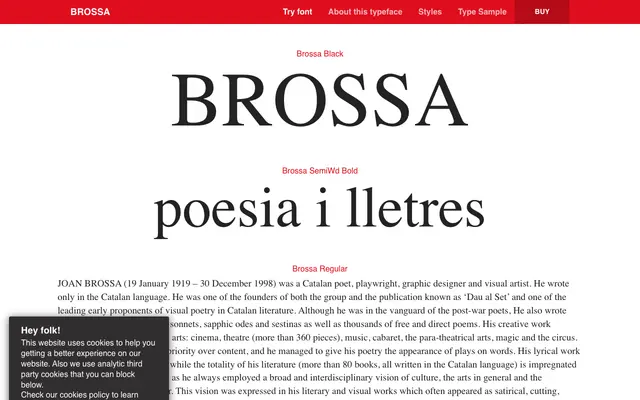
A large grotesque sans spanning six widths and nine weights, named after the Catalan poet and visual artist Joan Brossa.
Running from Condensed to X-Wide across nine weights from Thin to Black, Brossa offers an unusually broad typographic palette within a single family. Each width comes with a full set of italics, giving designers considerable flexibility across print and screen contexts. OpenType features include case-sensitive forms, ordinals, slashed zero and four stylistic sets.
Brossa is a sans-serif with a broad width axis spanning Condensed to X-Wide, consistent with the grotesque tradition. The extensive weight and width range, combined with the absence of decorative or humanist features, places it firmly in the grotesque sans category.